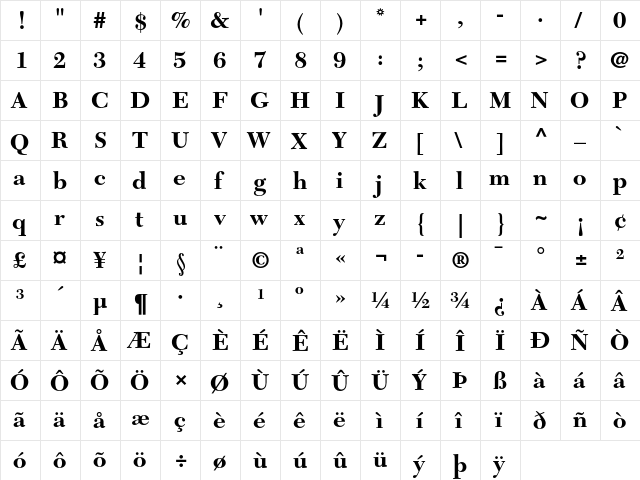
New Caledonia Bold
Design Context for New Caledonia Typeface
New Caledonia is a composed and adaptable typeface that performs quietly and consistently across a wide range of design contexts. The heavy weight commands attention and anchors typographic hierarchies.